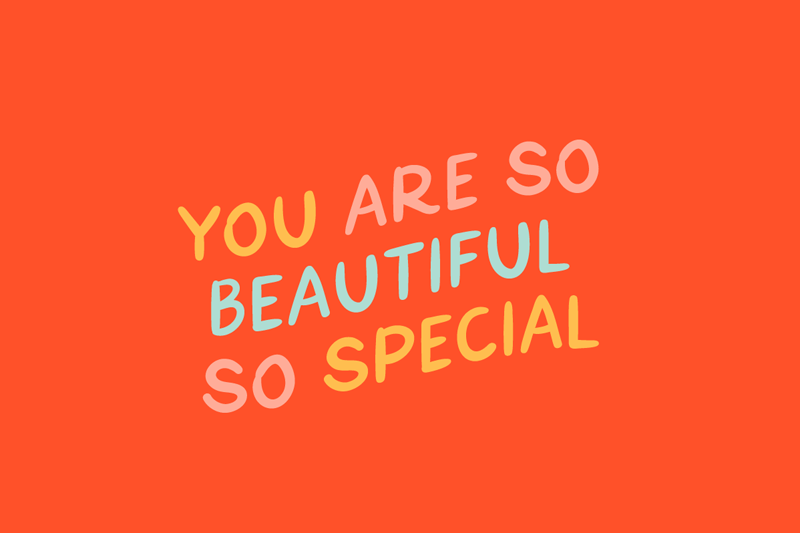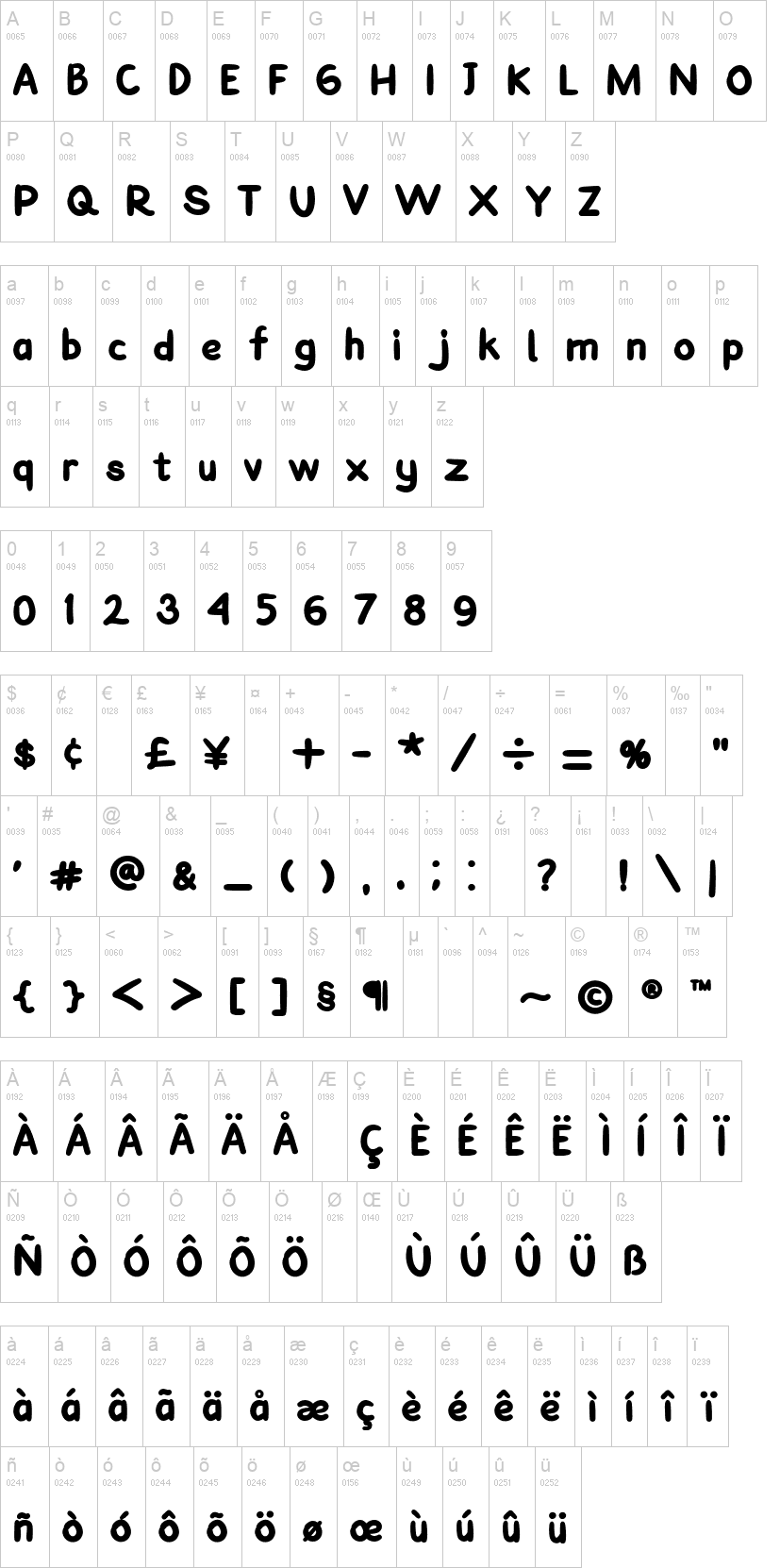
Note of the authorGet creative with PATRA Playful Font.
This font comes in outline and filled form so you can style it in a number of ways. This is a basic hand lettering font, Diverse to use anywhere but cute enough to stand out wherever it is used. This font is perfect for designing designs for kids, comics, posters and quotes. fun branding, editorial headers, products, Instagram announcements, web banners, book covers, logos, inspirational quotes, and more!